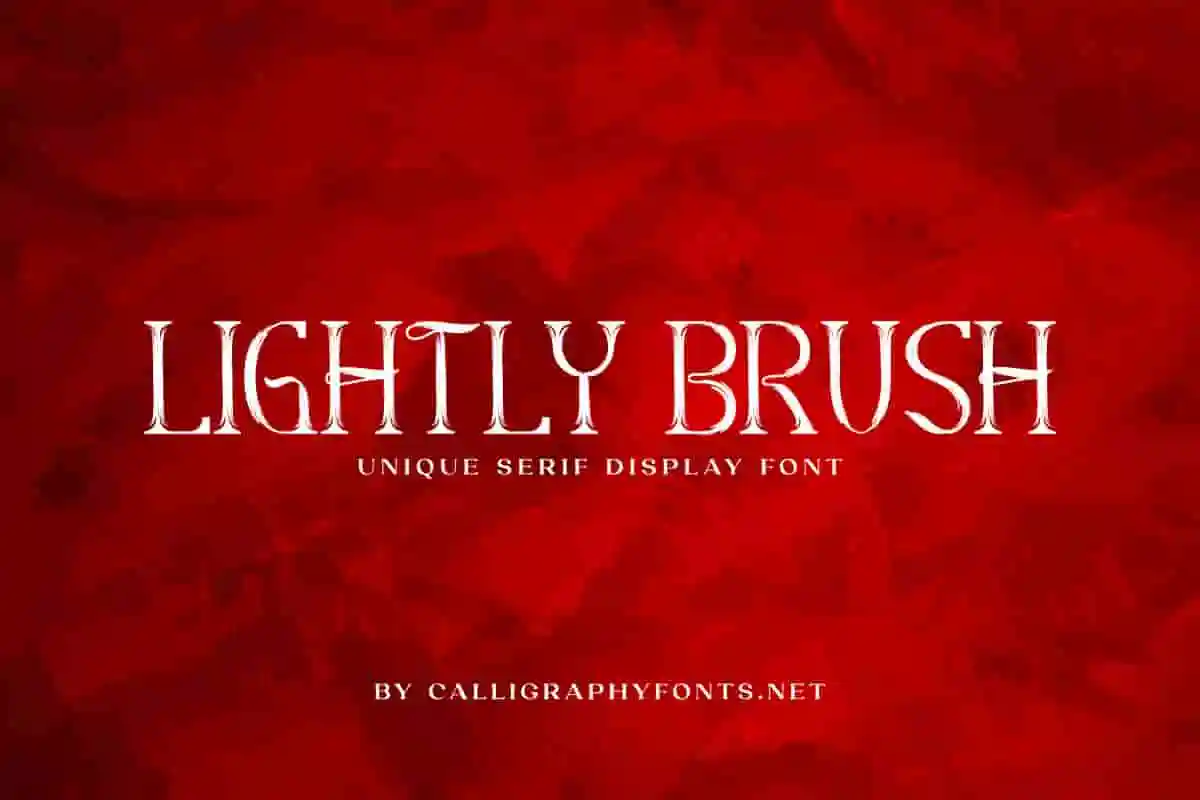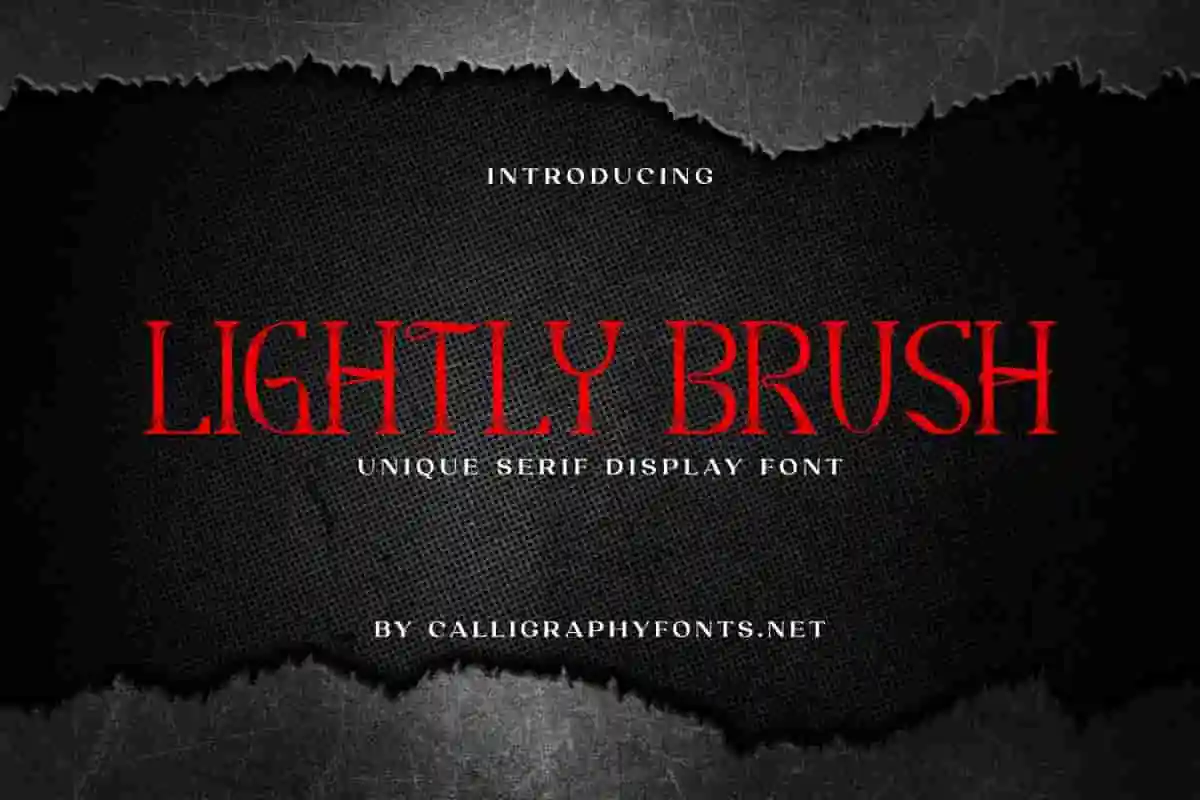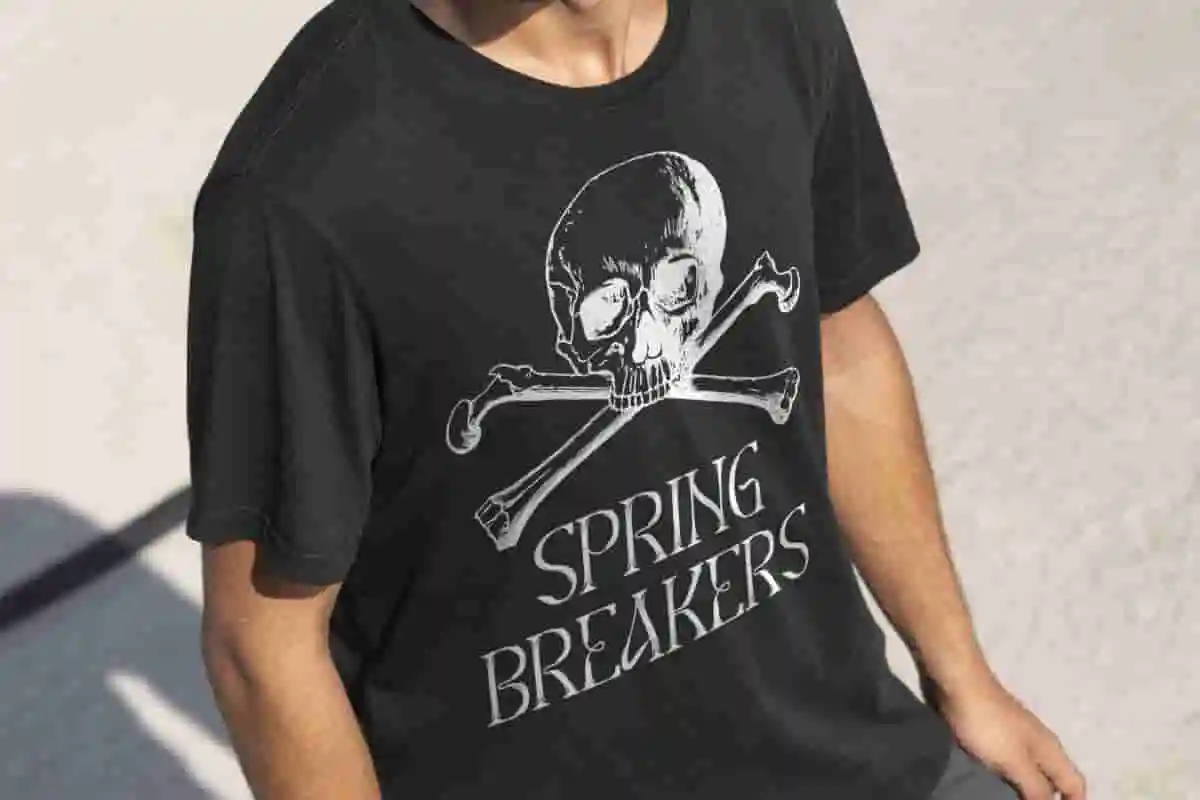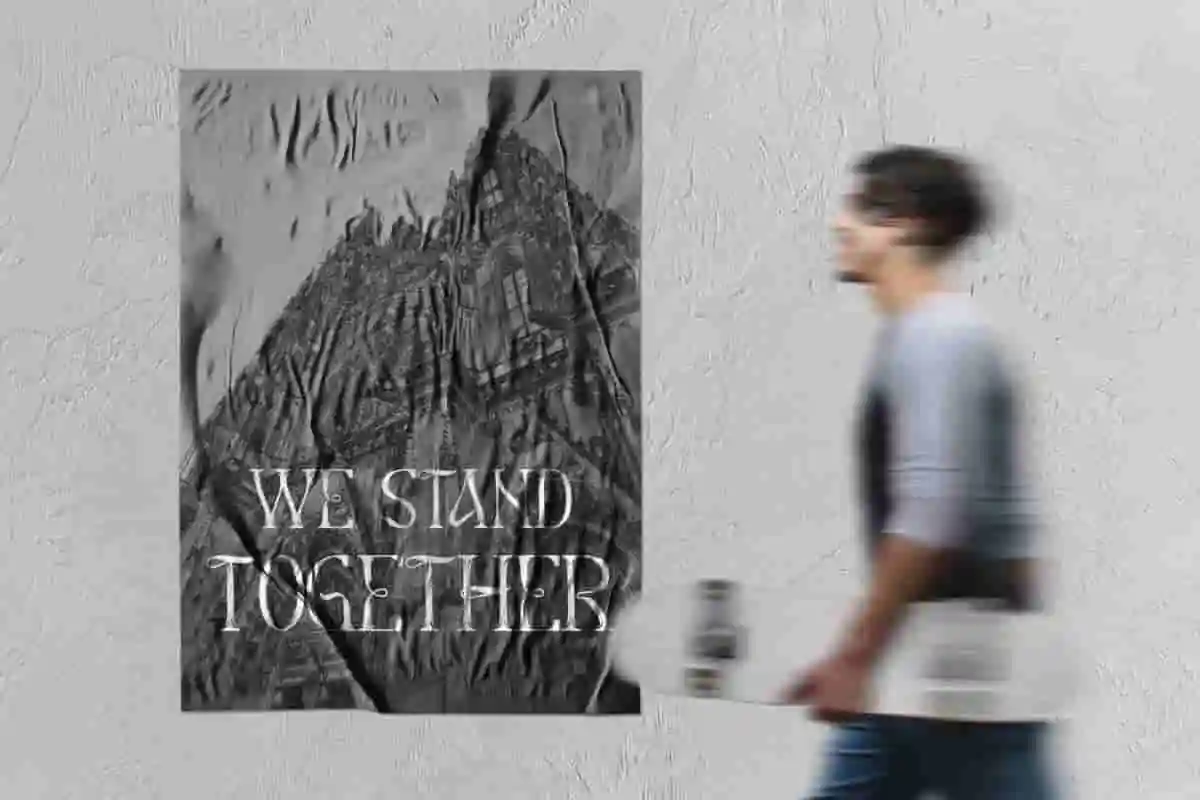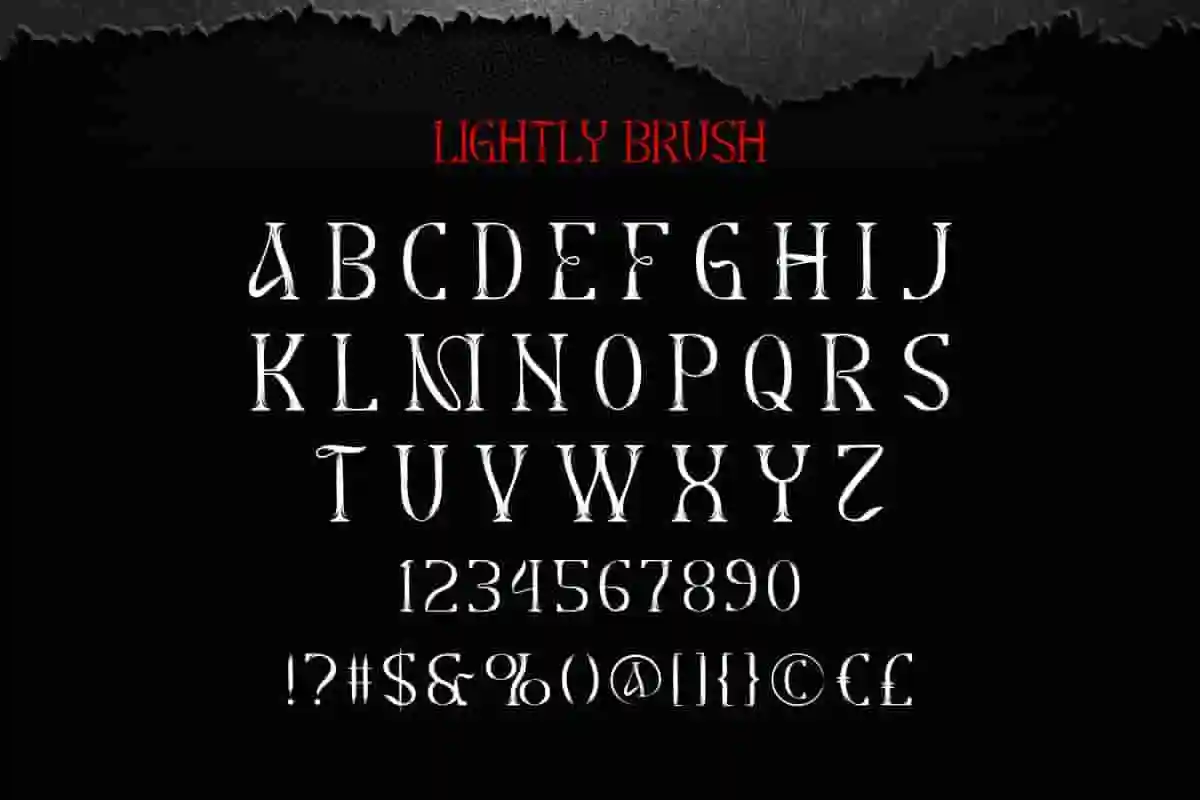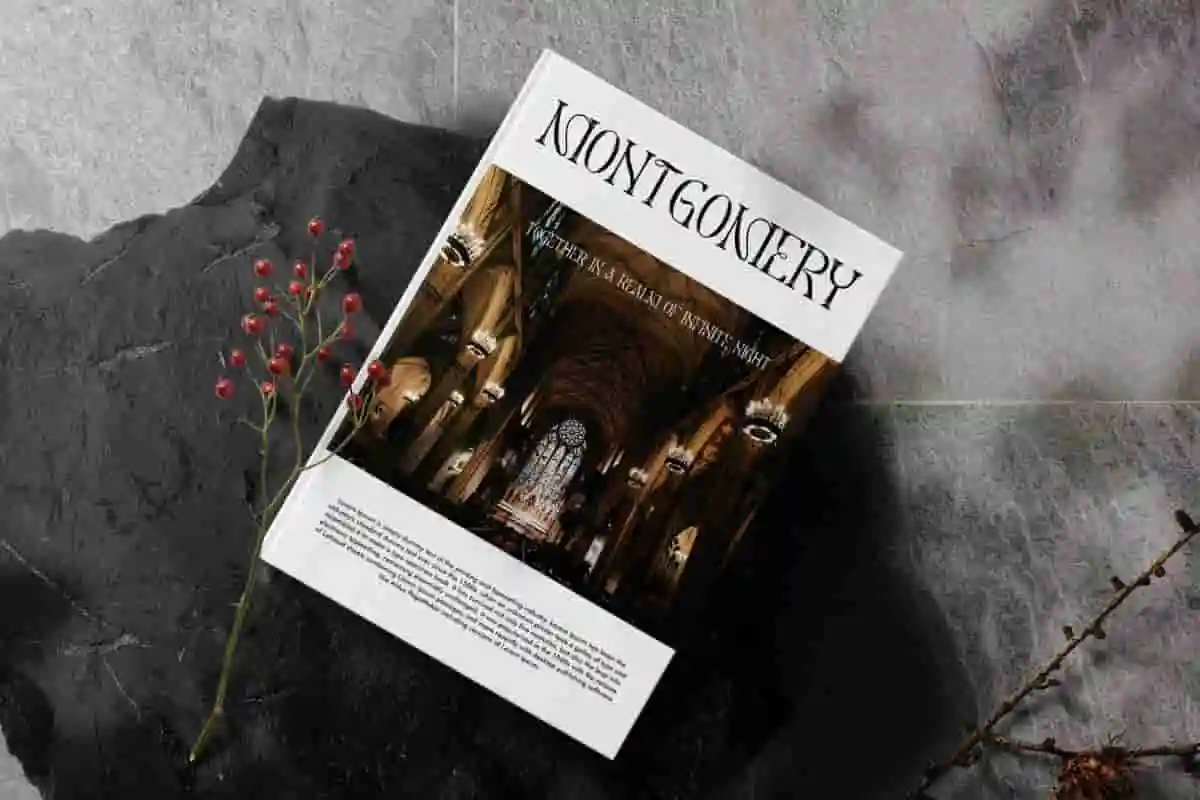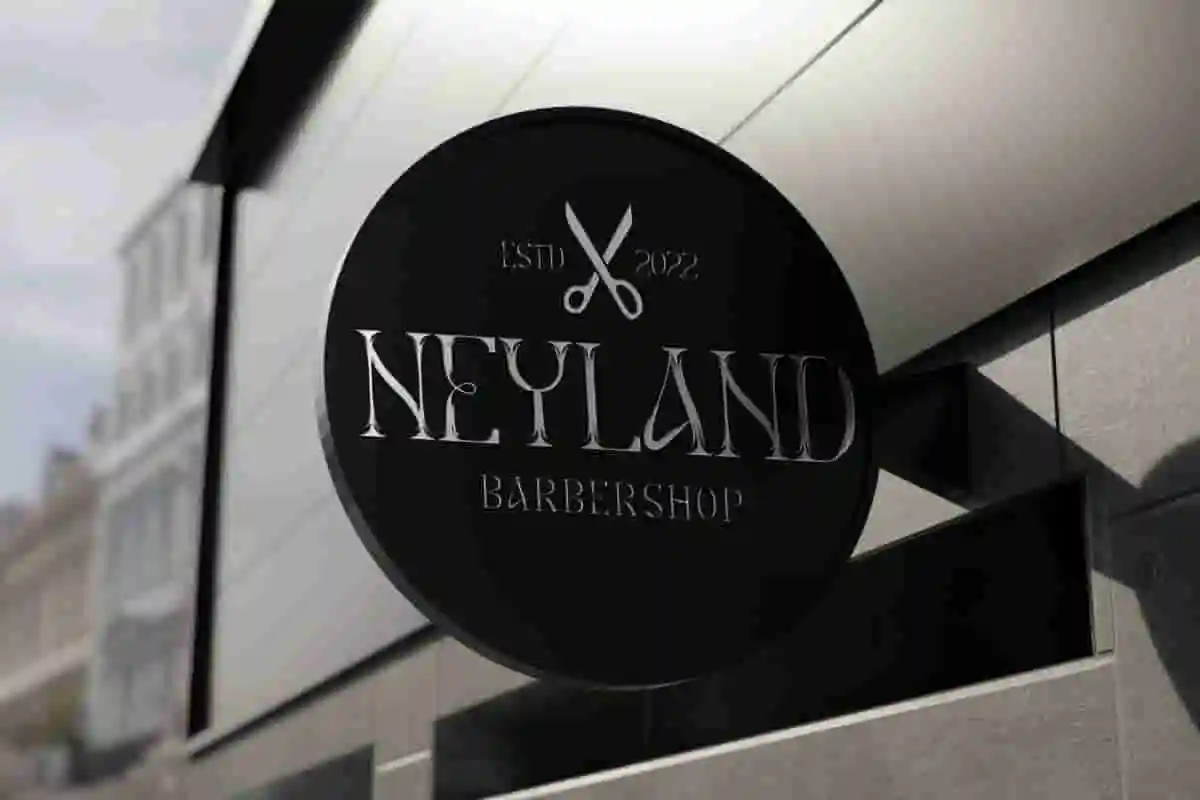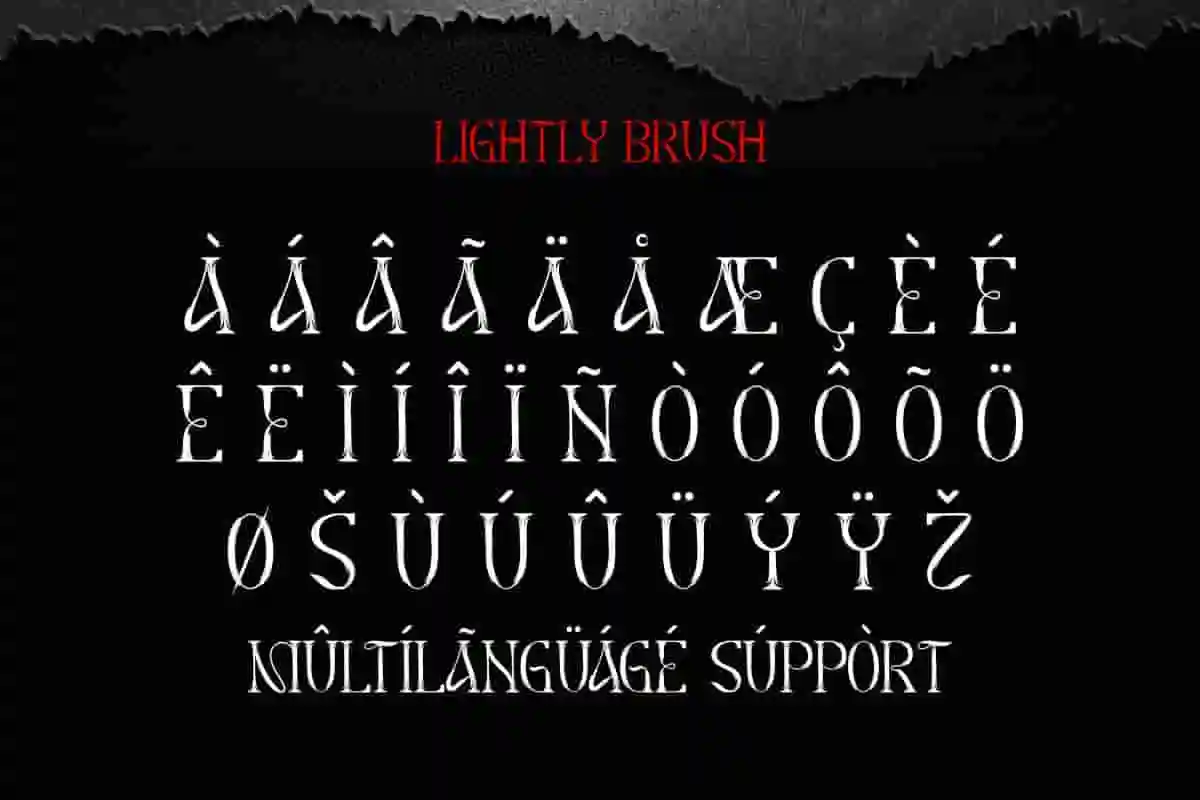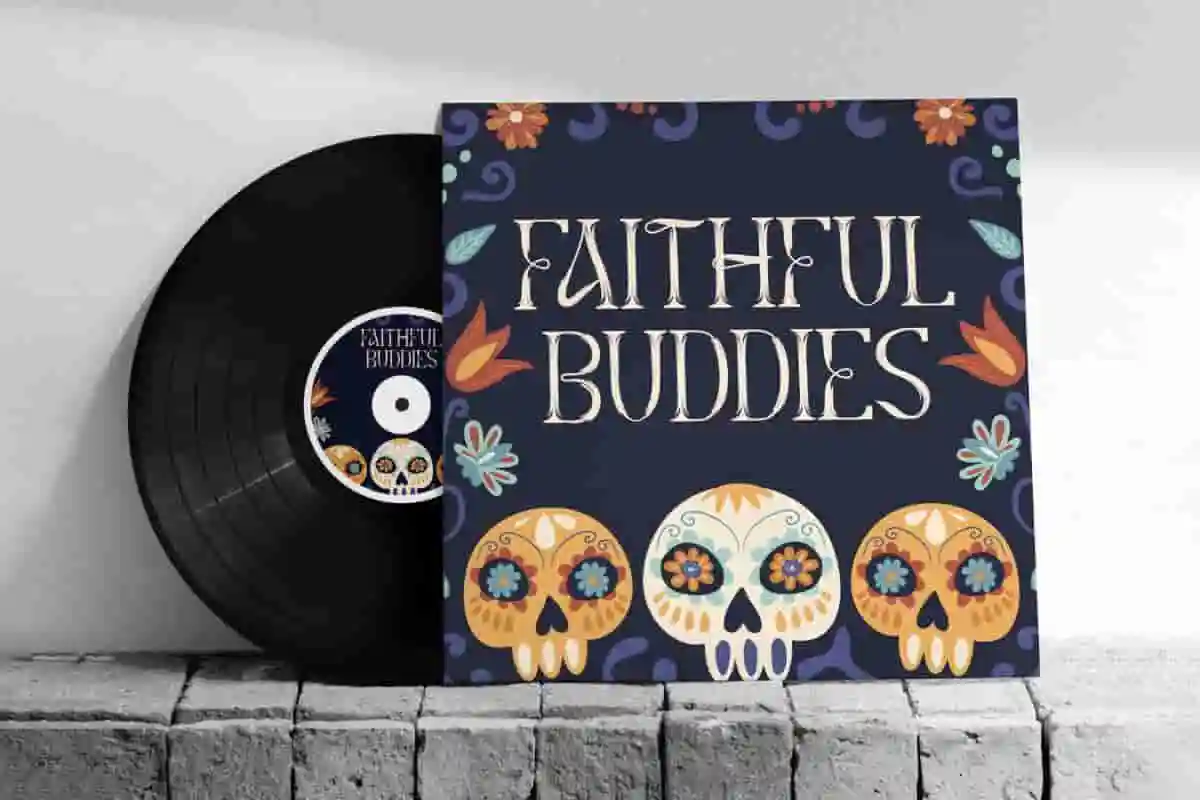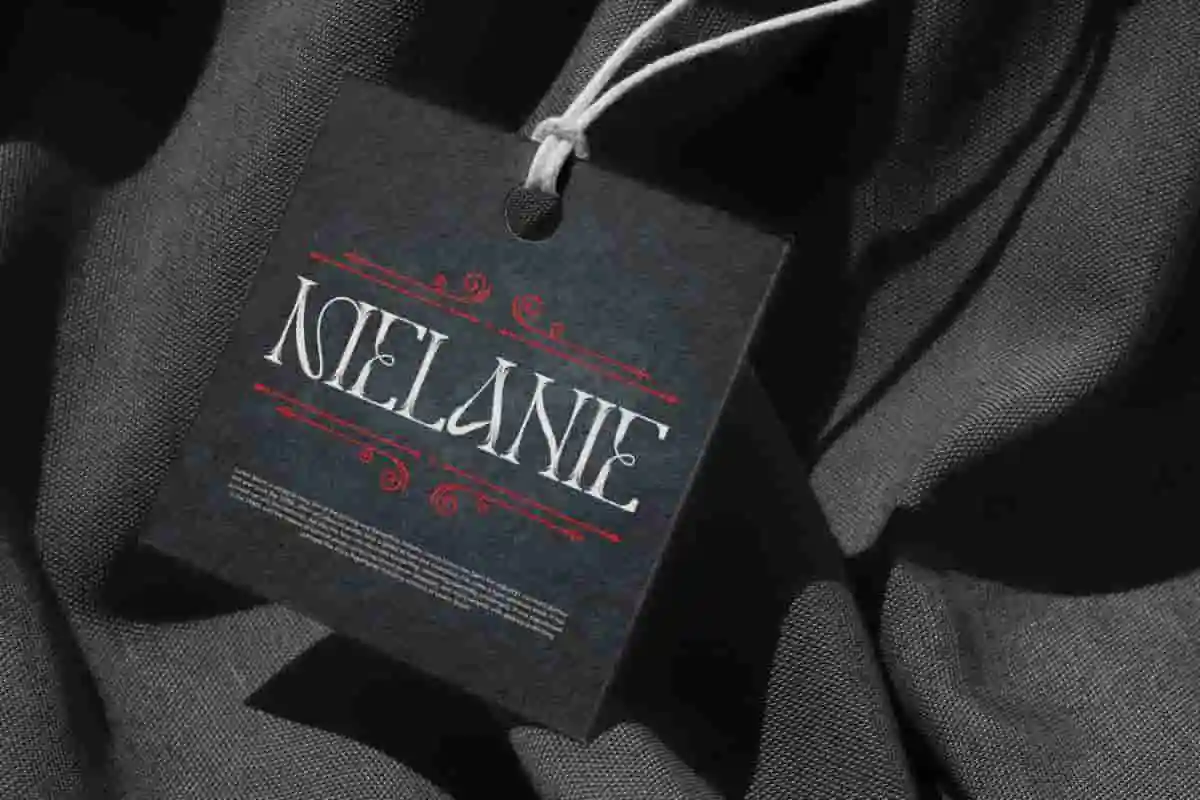
Lightly Brush Font
Lightly Brush Font is a uniquely mysterious serif display font created by CalligraphyFonts.net. This font would be great for barbershop, café, fashion, movie, musician, poster, and anything that requires a stylish and slightly gruesome look.
Lightly Brush Font is a uniquely mysterious serif display font created by CalligraphyFonts.net. This font bring a spooky vibe to your design that will be perfect for any creative project, including: billboard, header, label, poster, signage, stationery, t-shirt design, vinyl cover, and anything that requires a stylish and slightly gruesome look.
Bring your creative projects to life with Lightly Brush Display Font, a striking brush-style typeface designed to capture attention. With its bold strokes, natural hand-painted texture, and artistic energy, this display font is perfect for designs that need a strong personality and creative flair.
Whether you are working on posters, branding, logos, packaging, apparel, or social media graphics, Lightly Brush Font adds an authentic brush touch that feels dynamic and unique. Every letter flows with a natural rhythm, giving your text an energetic look that stands out from ordinary fonts.
Perfect for designers, artists, and creative brands, this brush font is easy to use and versatile across both print and digital platforms. Its bold yet stylish aesthetic makes it an ideal choice for promotional designs, advertising, music covers, and lifestyle projects.
If you’re looking for a modern brush font that combines raw artistic energy with professional usability, Lightly Brush Font is the perfect addition to your font collection.
Lightly Brush Display Font will be perfect for any industries, such as: movie, barbershop, café, fashion, event/festival, game, museum, musician, sport, etc. This font is basically a serif that is artistically made different, looks perfect, and makes it easy for readers.
Lightly Brush Display Font comes with All Caps for Uppercase Characters, Number, a large range of Punctuation and Symbol, also supports multilingual characters. Ready to use both on Windows machine or Mac with simple installations. It’s tested to work well in the Adobe Apps (Illustrator, Adobe InDesign, Adobe Photoshop) CorelDraw, and others. PUA Encode Characters means you can access all the glyphs and other characters easily – Fully accessible without additional design software.